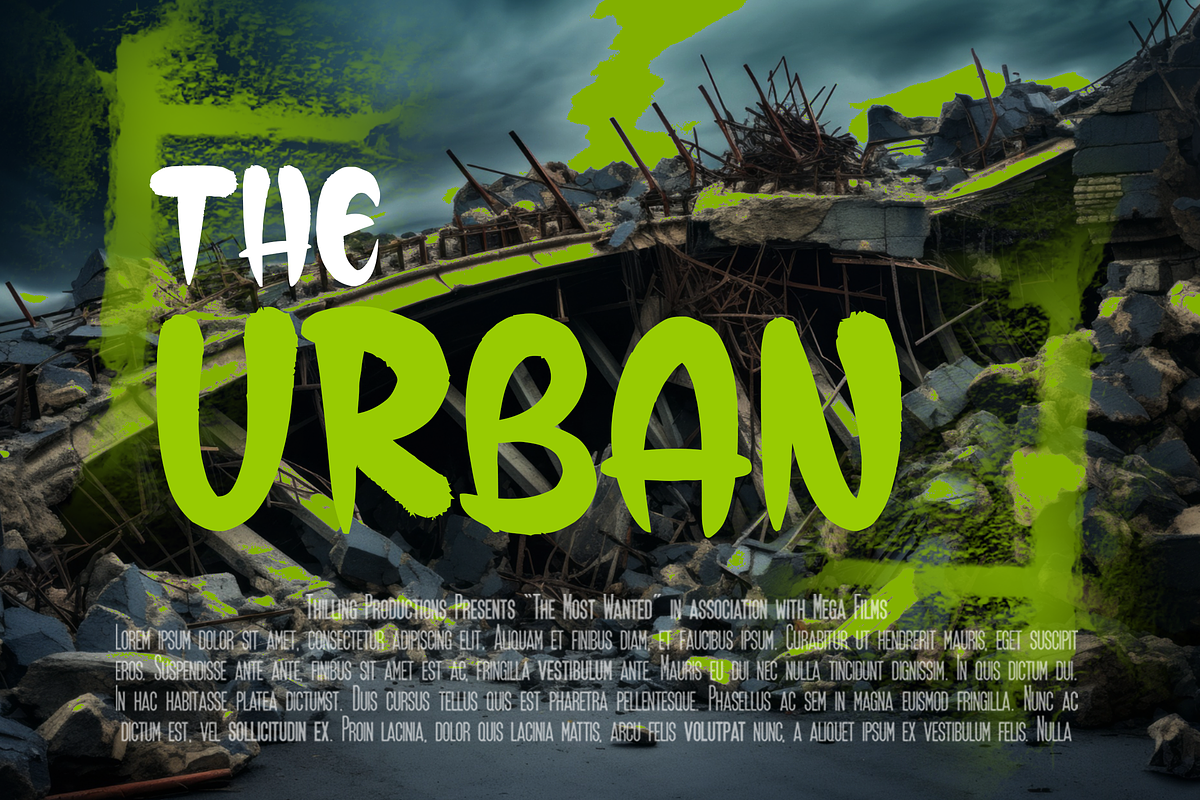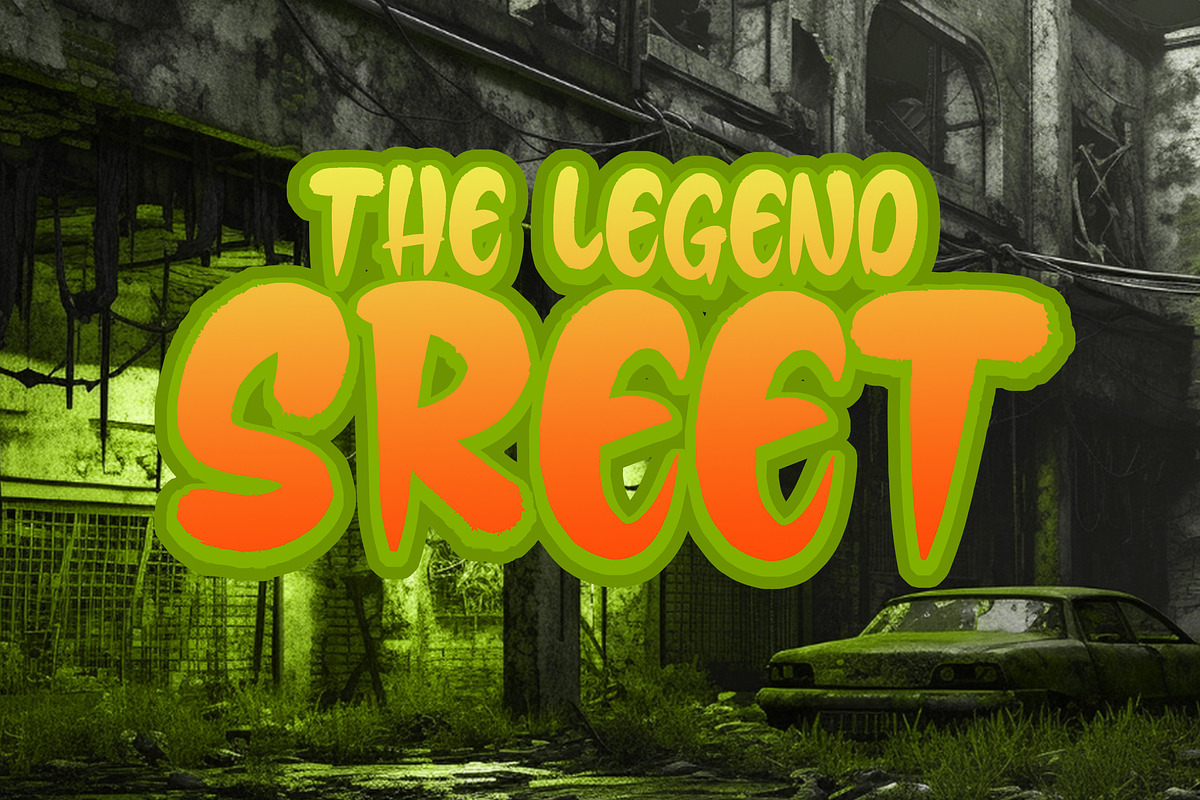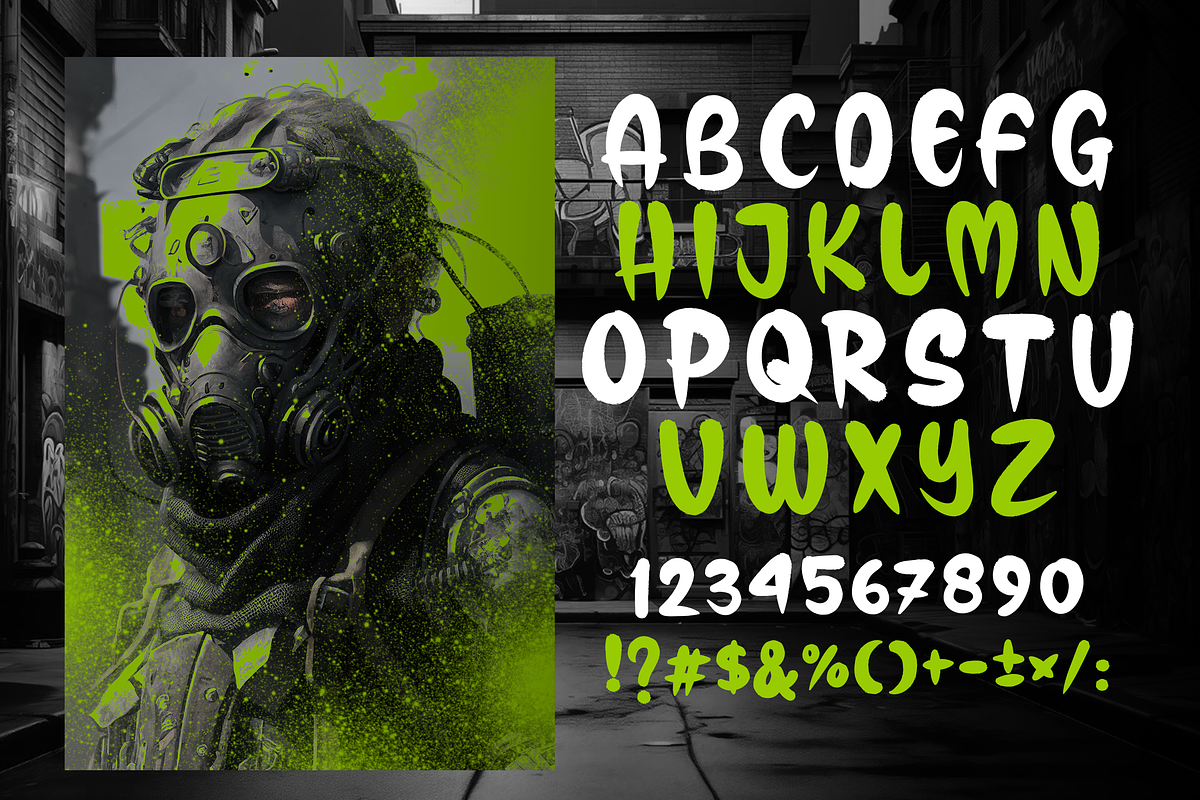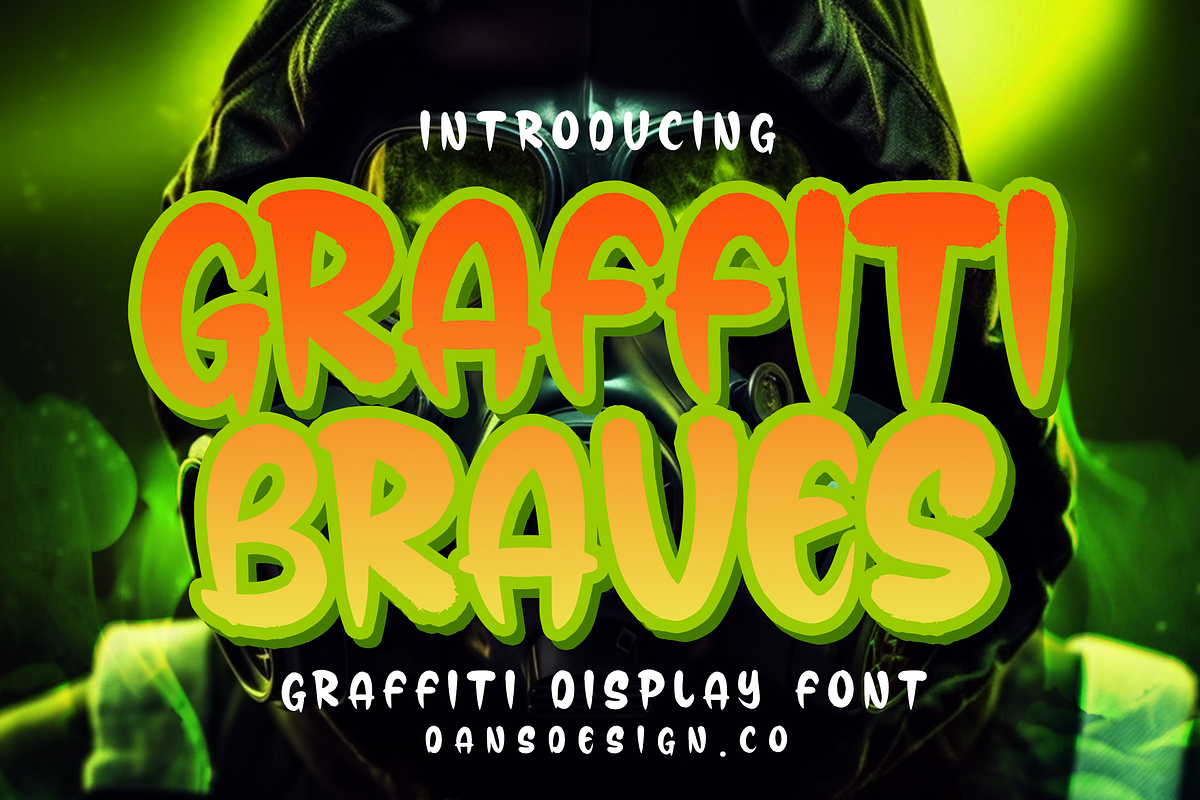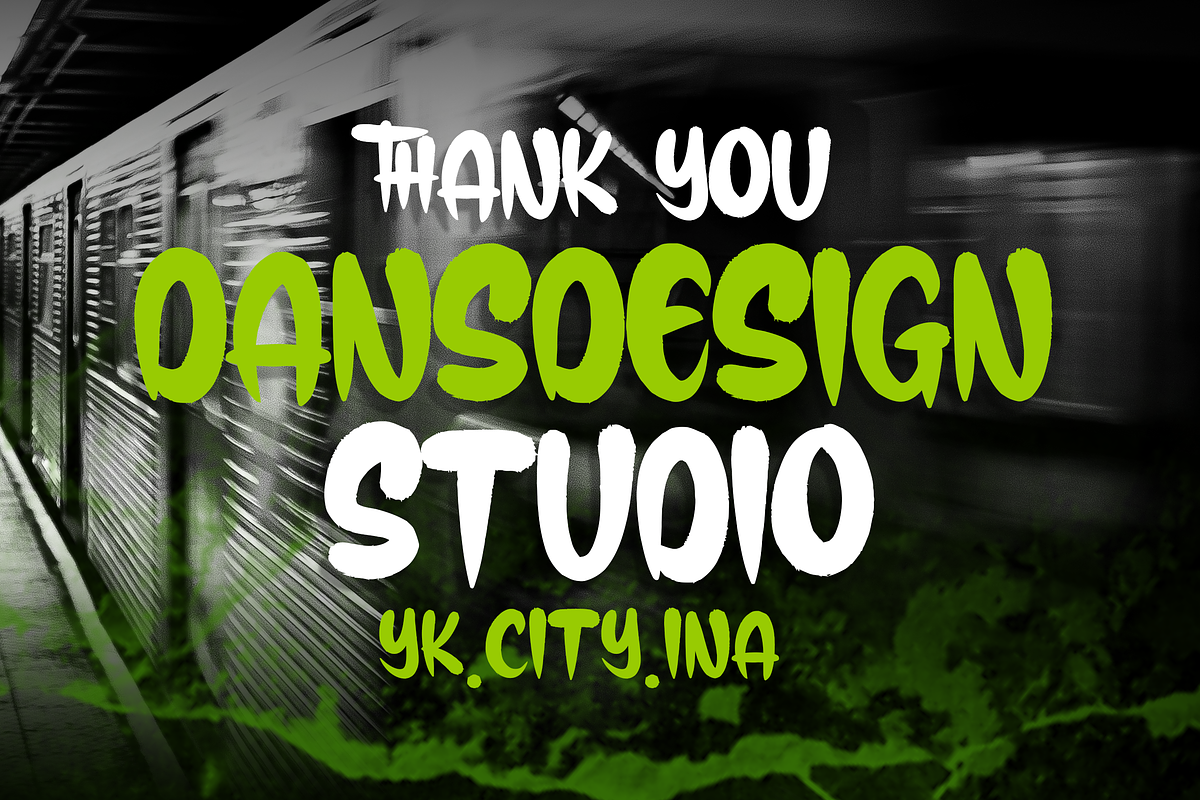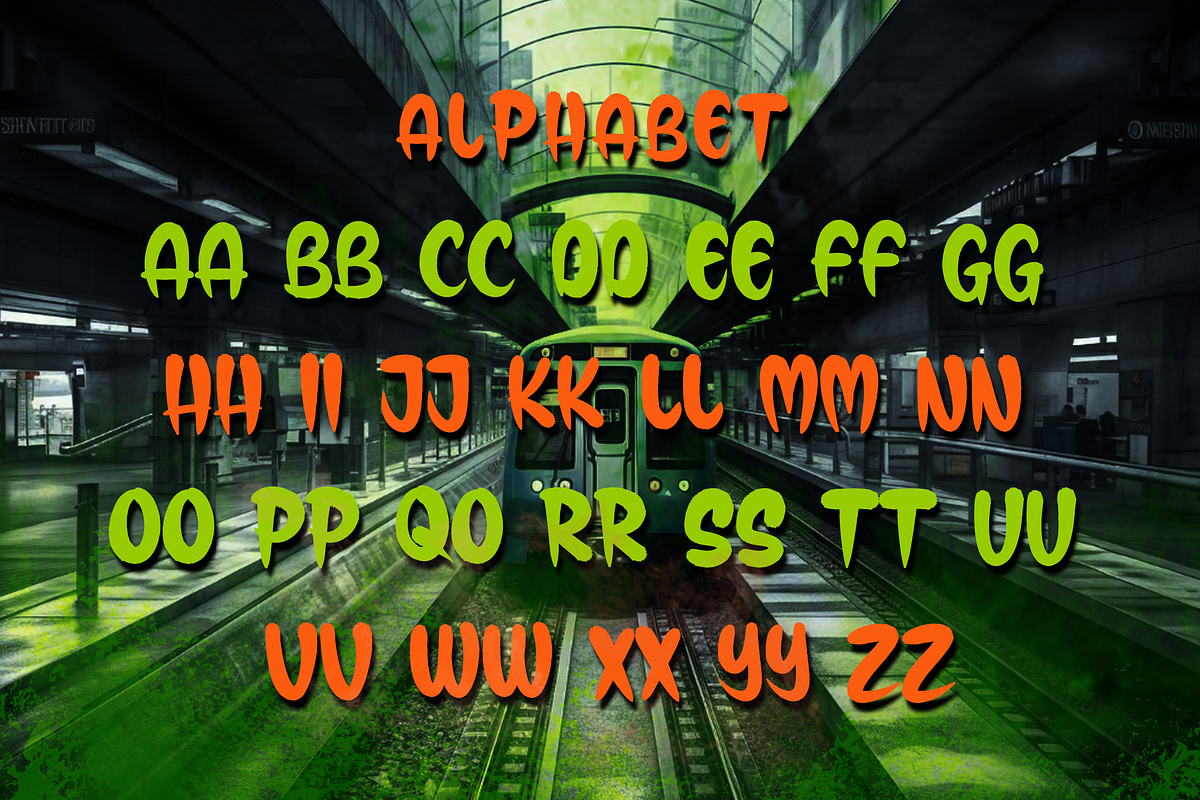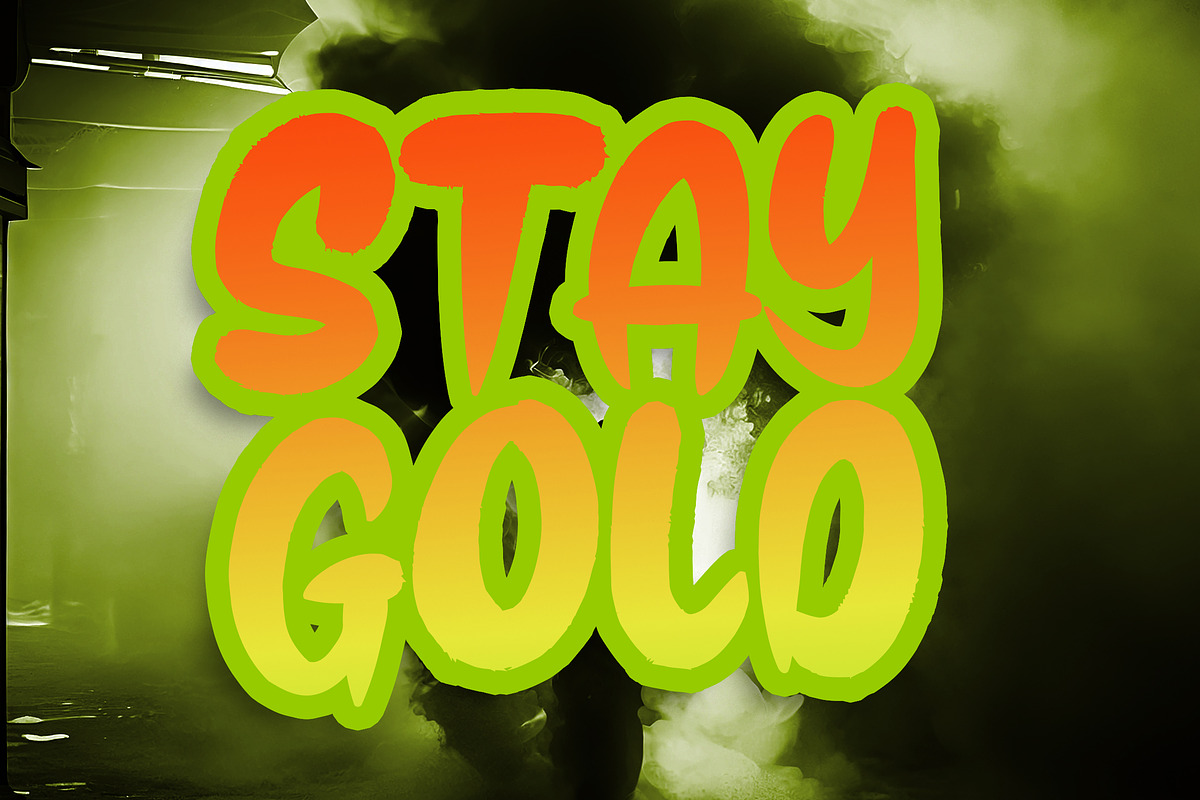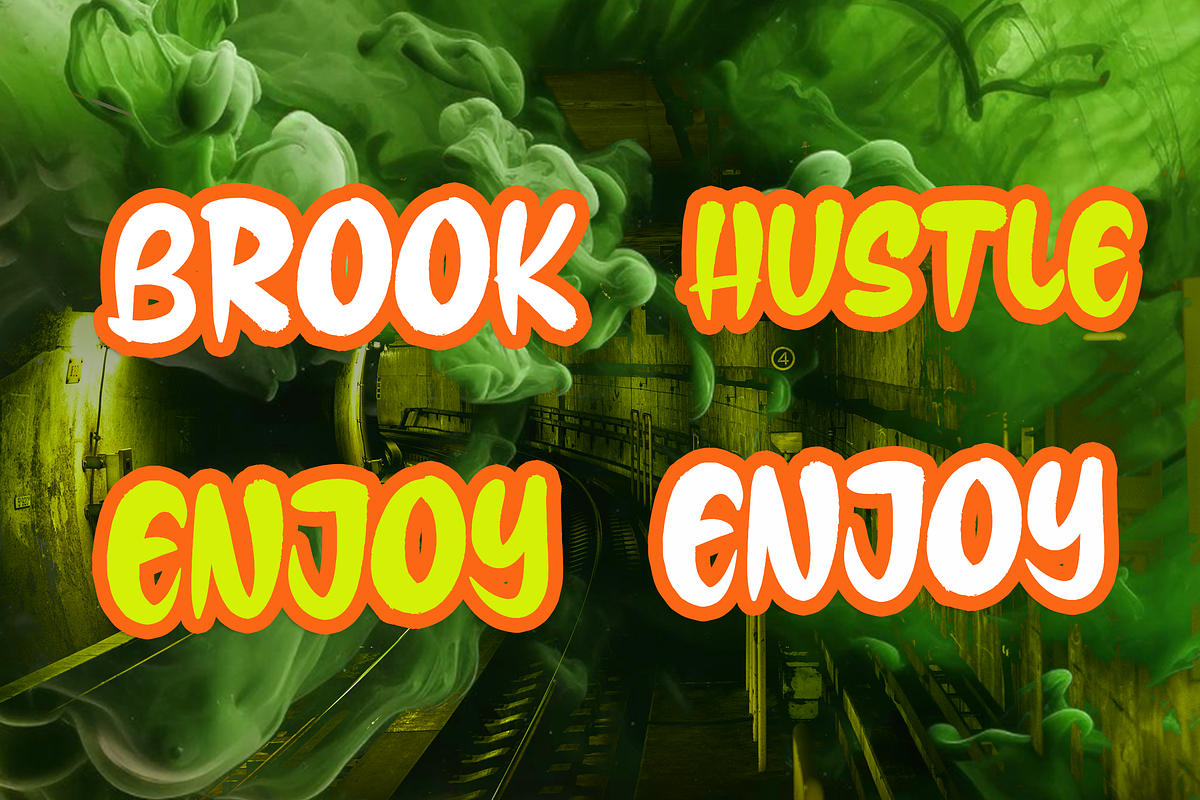
GRAFFITI BRAVES MODERN DISPLAY
GRAFFITI BRAVES MODERN DISPLAY GRAFFITI FONT
GRAFFITI BRAVES MODERN DISPLAY GRAFFITI FONT a distinct, highly detailed. GRAFFITI Display Font. It would make a great choice for exquisite retro-urban designs, business branding, logos, Apparel designs, and more.